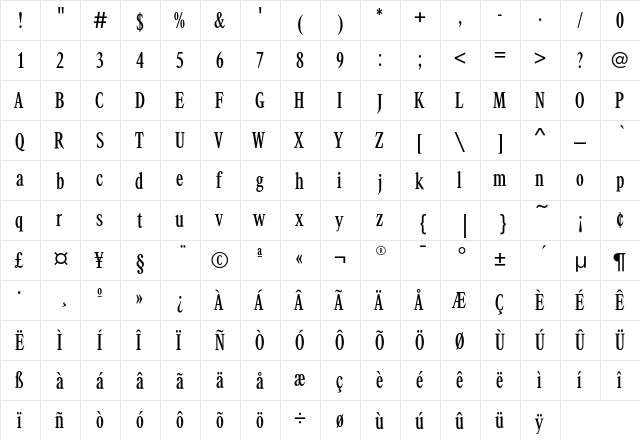
ExcaliburEF-Medium Regular
Design Context for ExcaliburEF-Medium Typeface
ExcaliburEF-Medium offers clean, dependable letterforms without strong stylistic allegiance, making it a practical choice for designers who need flexibility.